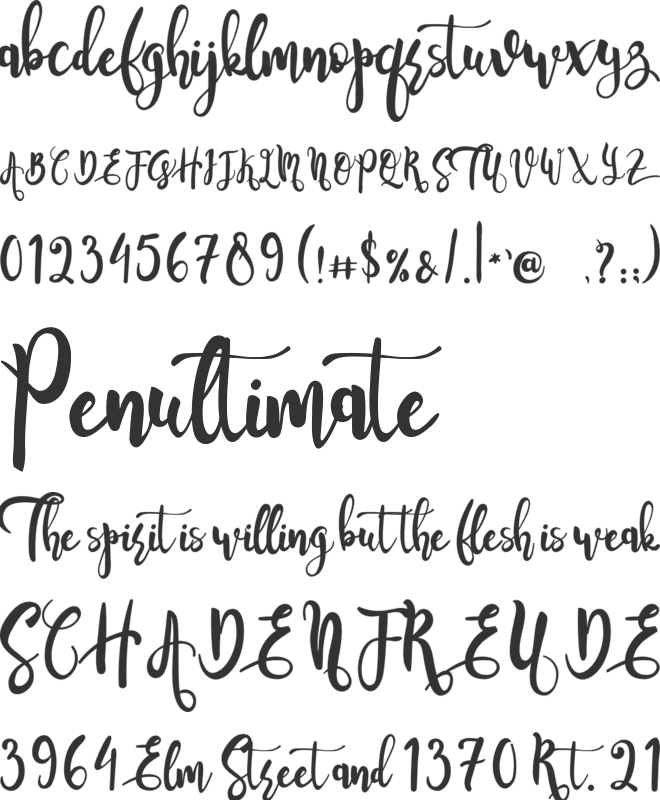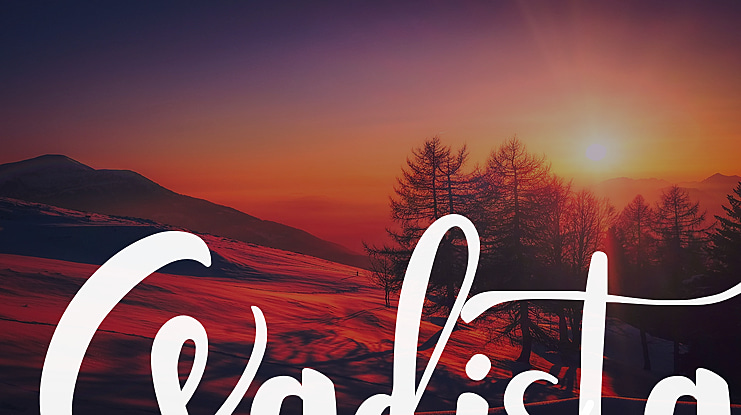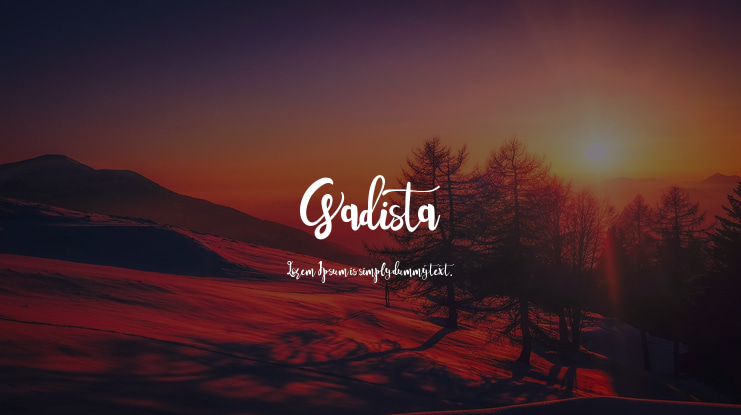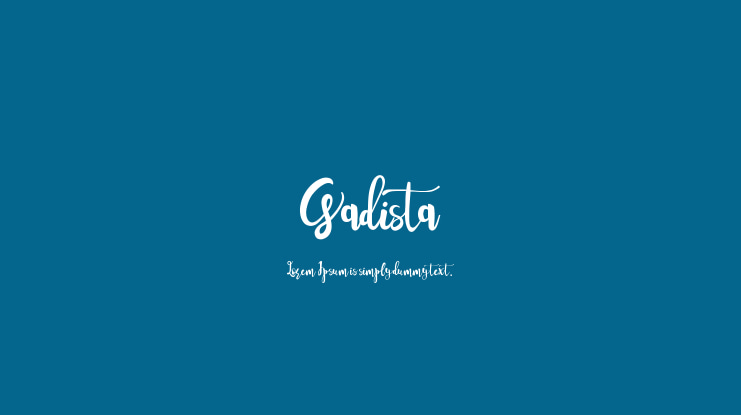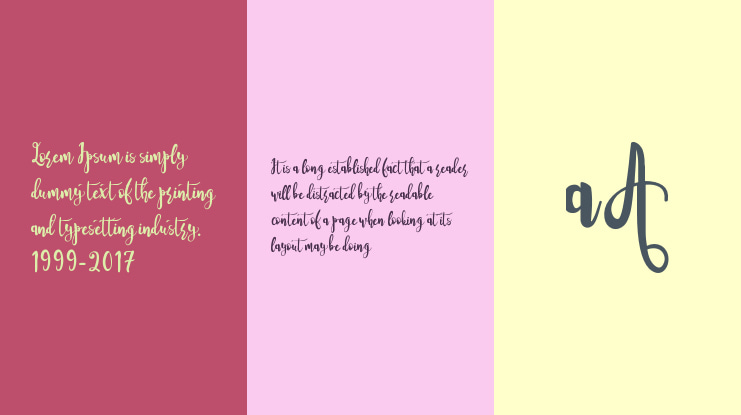
Gadista Font
--------------------- Seventeen Script is a sweet font, fancy and fabulous.Can used for various purposes. such as titles, labels, newsletters, posters, signatures, logos, correspondence, wedding invitations, letterhead, signage, badges, etc.
Seventeen Script features 377 Glyphs with Alternate character (Start & End character ) and International support for most Western Languages is included.